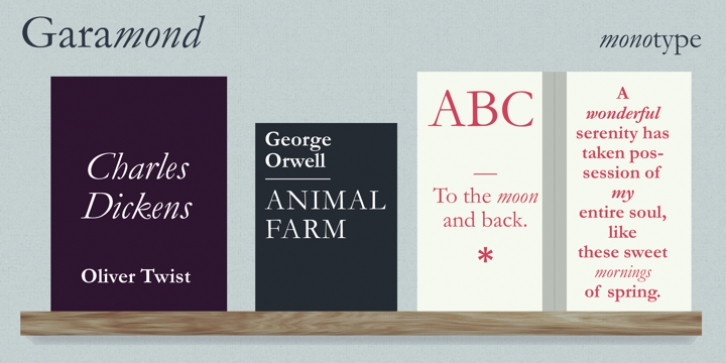
Monotype Garamond is based on roman types cut by Jean Jannon in 1615. Jannon followed the designs of Claude Garamond which had been cut in the previous century. Garamond’s types were in turn, based on those used by Aldus Manutius in 1495 and cut by Francesco Griffo. The Monotype Garamond Italic fonts are based on types cut in France circa 1557 by Robert Granjon.